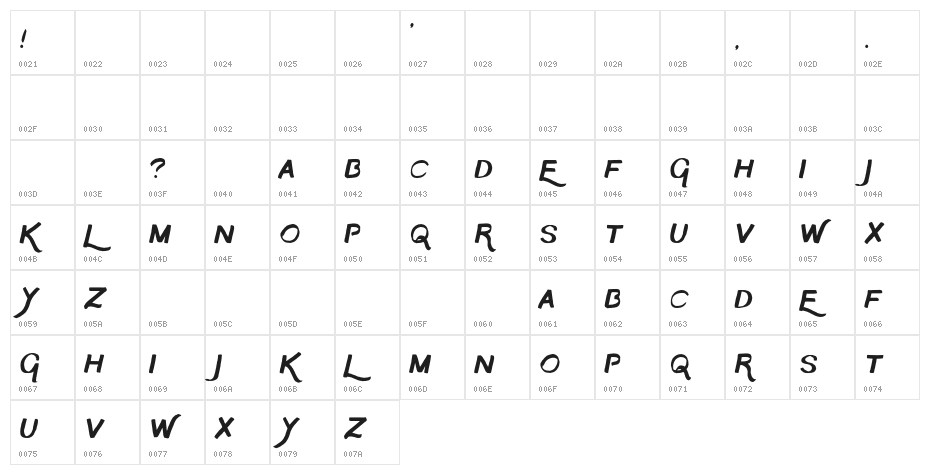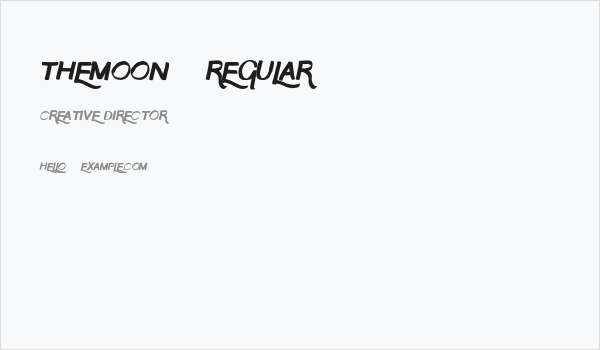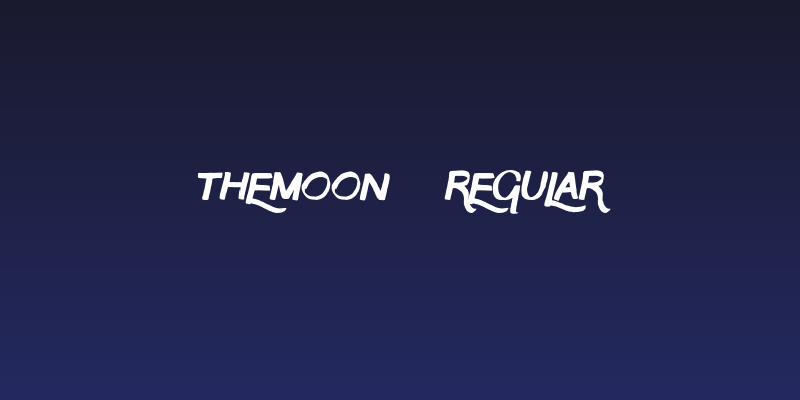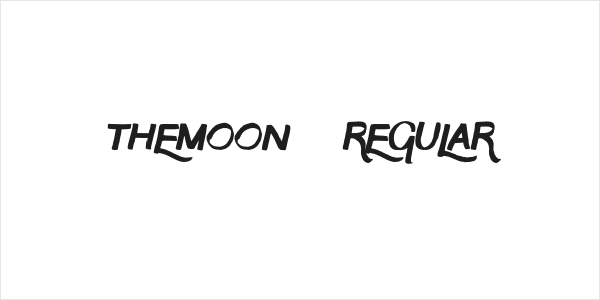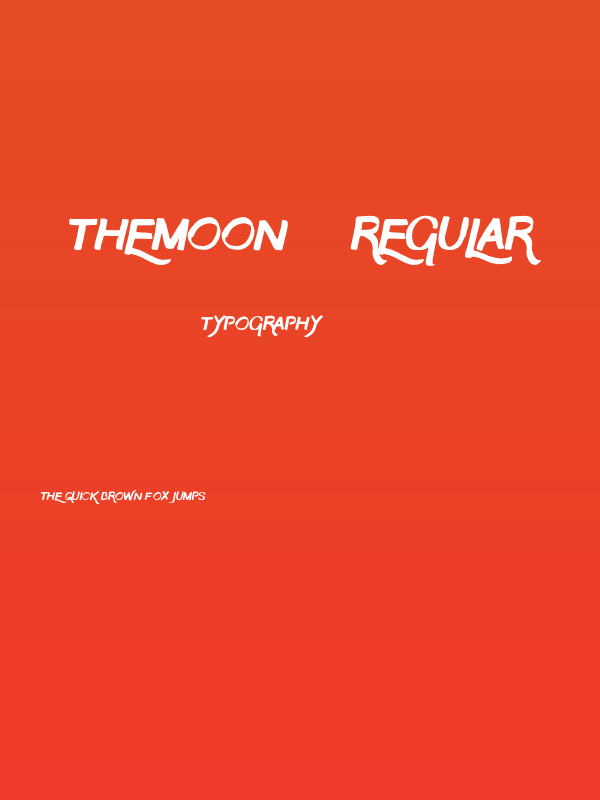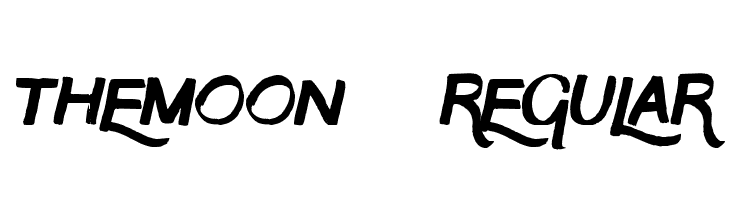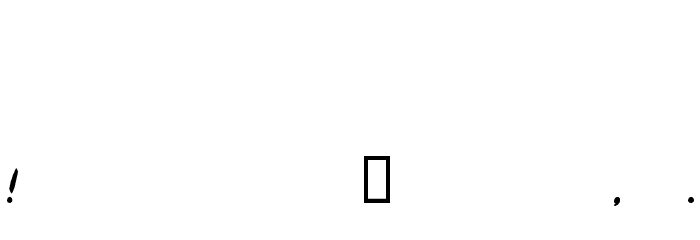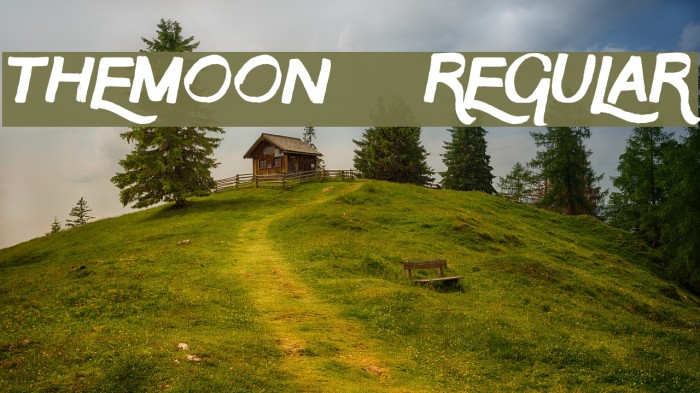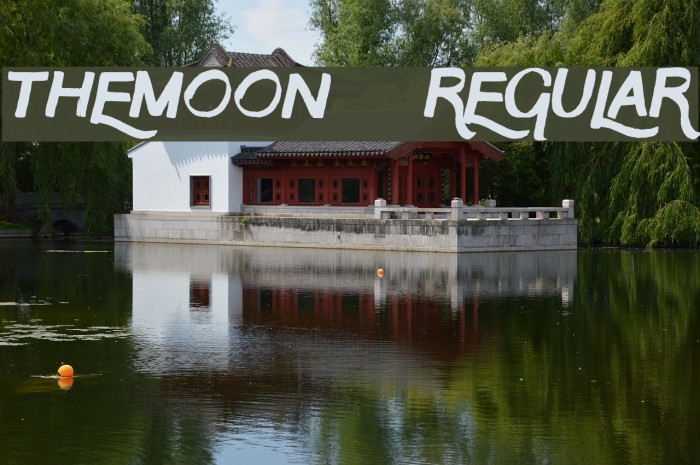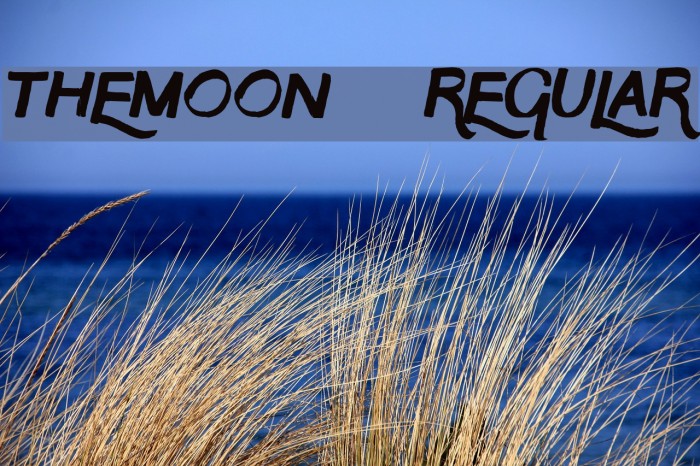
TheMoon-Regular Font
TheMoon-Regular Description
This font features a bold and expressive style with a unique blend of curves and sharp edges, giving it a dynamic and energetic appearance. The uppercase letters are particularly striking, with exaggerated flourishes on certain characters like 'Q' and 'K', adding a sense of movement and flair. The lowercase letters maintain a consistent style, complementing the uppercase with their own subtle curves and angles. The numbers and special characters follow the same design principles, ensuring a cohesive look across all glyphs. This font's distinct personality makes it ideal for creative and artistic projects.
| Proposed Projects | Ideal for posters, album covers, branding, and any project requiring a bold, artistic touch. |